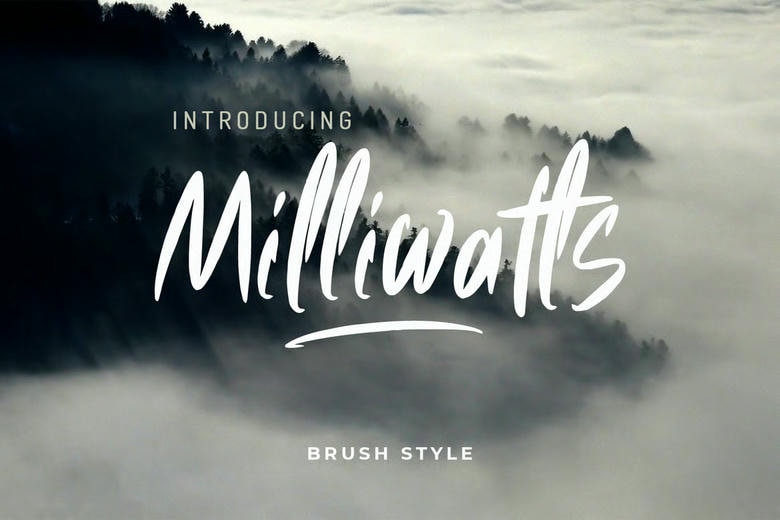
Milliwatts Font
Milliwatts -Casual Handwritten Script Font: This is a casual handwritten script font of smooth strokes and organic feel. It is made to be natural and expressive, which is ideal in a modern branding project, inspirational quote, social media image, packaged, poster, and personal projects.
The font contains upper and lower case characters, numbers, punctuation marks and multilingual character. Milliwatts is easy to read in its clean handwritten fashion and yet has a friendly and homemade kind of tone. The perfect choice of a designer who desires a bit of a human touch in the typography.
Milliwatts Brush Script Font